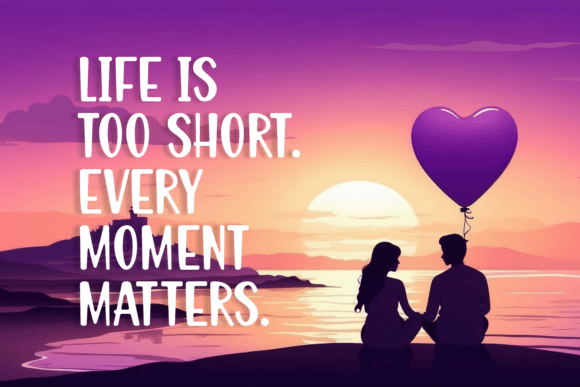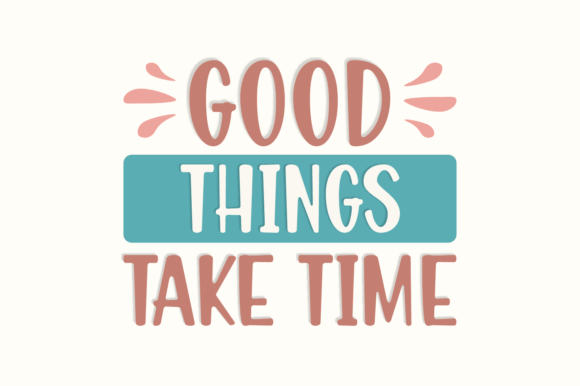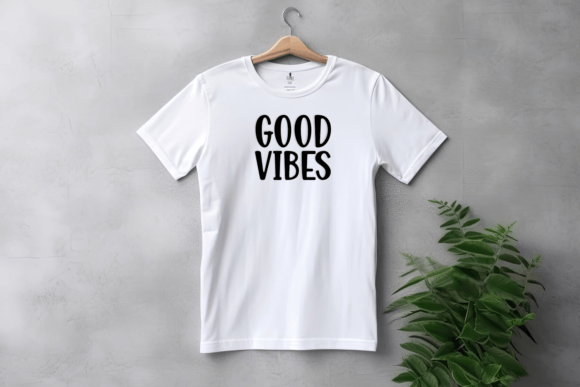
Discover the Beauty of Good Setting Font: Elevate Your Designs with this Modern Handwritten Typeface
In the world of typography, a good font can make all the difference in creating visually stunning designs. For designers and crafters looking for a modern and elegant handwritten typeface, Good Setting Font is an excellent choice. This beautiful font features thick and thin lines in perfect harmony, making it perfect for a wide range of design needs.
What is Good Setting Font?
Good Setting Font is a modern handwritten typeface that boasts a unique blend of thick and thin lines. This lovely font is designed to add a touch of elegance and sophistication to any design project. With its perfect balance of bold and delicate strokes, Good Setting Font is sure to capture the attention of your audience.
Key Features of Good Setting Font
- Modern Handwritten Style: Good Setting Font features a modern handwritten style that is both elegant and approachable.
- Thick and Thin Lines: The font’s perfect harmony of thick and thin lines creates a visually appealing contrast that adds depth and interest to any design.
- Versatile: Good Setting Font is suitable for a wide range of design needs, from logos and product packaging to invitations, branding, headlines, signage, labels, book covers, posters, quotes, and more.
Uses of Good Setting Font
Good Setting Font is an incredibly versatile font that can be used for various design projects. Here are some of the ways you can use this beautiful font:
- Logos: Create a stunning logo for your brand with Good Setting Font. The font’s modern handwritten style and perfect line balance make it perfect for creating a unique and memorable logo.
- Product Packaging: Add a touch of elegance to your product packaging with Good Setting Font. The font’s thick and thin lines create a beautiful contrast that will make your product stand out.
- Invitations: Create beautiful invitations for special occasions, such as weddings, birthdays, and baby showers, with Good Setting Font.
- Branding: Use Good Setting Font to create a consistent brand identity across all your marketing materials.
- Headlines: Add a touch of sophistication to your headlines with Good Setting Font. The font’s modern handwritten style and perfect line balance make it perfect for creating eye-catching headlines.
- Signage: Use Good Setting Font to create stunning signage for your business or event.
- Labels: Create beautiful labels for your products or gifts with Good Setting Font.
- Book Covers: Use Good Setting Font to create a stunning book cover that will grab the attention of readers.
- Posters: Create eye-catching posters for your business, event, or cause with Good Setting Font.
- Quotes: Add a touch of elegance to your quotes with Good Setting Font. The font’s modern handwritten style and perfect line balance make it perfect for creating visually stunning quotes.
Why Choose Good Setting Font?
Good Setting Font is an excellent choice for designers and crafters looking for a modern handwritten typeface. Here are some reasons why you should choose Good Setting Font:
- Unique and Elegant: Good Setting Font features a unique and elegant modern handwritten style that will add a touch of sophistication to any design.
- Versatile: The font is suitable for a wide range of design needs, making it a great addition to any designer’s toolkit.
- Easy to Read: Good Setting Font is easy to read, making it perfect for body text and headlines.
- High-Quality: The font is of high quality, ensuring that it will look great in any design.
In conclusion, Good Setting Font is a beautiful modern handwritten typeface that is perfect for designers and crafters looking to add a touch of elegance and sophistication to their designs. With its perfect balance of thick and thin lines, Good Setting Font is suitable for a wide range of design needs, from logos and product packaging to invitations, branding, headlines, signage, labels, book covers, posters, quotes, and more. Whether you’re a professional designer or a crafter, Good Setting Font is an excellent choice for any design project.